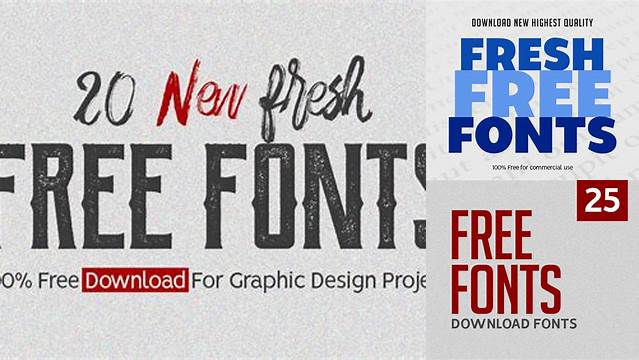
Download Free Fonts For Stunning Graphic Design
Hey there, design enthusiasts! Looking to spice up your projects with some killer typography? Well, you've come to the right place! We're diving headfirst into the awesome world of free graphic design fonts download, and trust me, it's a treasure trove of creativity just waiting to be unleashed. Getting access to free graphic design fonts download is like having a superpower; it empowers you to transform ordinary text into eye-catching visuals that grab attention and leave a lasting impression. Whether you're a seasoned pro or a newbie just starting out, finding the perfect font can be the difference between a design that's “meh” and one that's “WOW!” This guide is your ultimate companion, offering insights, tips, and a hand-picked selection of incredible free graphic design fonts download that will elevate your design game. So, buckle up, because we're about to embark on an exciting journey through the world of typography, ensuring that you have access to the best free graphic design fonts download resources available.
Free Fonts for Graphic Design: Where to Find the Best Ones
Alright, let's get down to business, shall we? Finding the best free fonts for graphic design is like a digital scavenger hunt, but the rewards are oh-so-sweet. Luckily, there are tons of websites out there that offer a vast array of fonts, ready for you to download and use in your projects. One of the most popular places to start your search is Google Fonts. This massive library is a goldmine of high-quality, open-source fonts, perfect for both personal and commercial use. Google Fonts is super easy to navigate, with options to filter fonts by categories like serif, sans-serif, monospace, and more. You can also sort them by popularity, trending, or the number of styles they offer. Seriously, you could spend hours just browsing through all the amazing options. Another fantastic resource is Font Squirrel. This site curates a collection of fonts that are licensed for commercial use, meaning you can use them in your client work without worrying about any legal issues. Font Squirrel also has a handy tool called the Font Identifier, which allows you to upload an image of a font and identify it. This can be a lifesaver when you come across a font you love but don't know the name of! Beyond Google Fonts and Font Squirrel, there are other websites with remarkable free fonts for graphic design such as DaFont and 1001 Fonts. Keep in mind that some fonts may have specific licensing terms, so always double-check before using them in your designs. Always read the license agreements to ensure you are using the fonts appropriately, especially if you plan to use them for commercial purposes. Understanding the licensing terms protects both you and the font creators. The options are vast, and with a little exploration, you'll find a plethora of free fonts for graphic design ready to transform your projects.
Top Websites Offering Free Fonts for Designers
Alright, let's get to the good stuff – the websites! There are tons of places where you can find amazing free fonts for designers, and I'm going to share some of my absolute favorites. First up, we have Google Fonts. It is not only huge, it's also incredibly user-friendly, with a vast collection of open-source fonts that are free for both personal and commercial use. The great thing about Google Fonts is that you can easily preview the fonts, filter them by categories, and even see them in action with your own text. Next, there's Font Squirrel. As I mentioned before, Font Squirrel curates a selection of fonts that are licensed for commercial use, making it a great option if you're working on client projects or commercial designs. The site also has a handy Font Identifier tool that you can use to identify fonts from images. DaFont is a popular website with a massive collection of fonts, but be sure to check the license for each font before using it. 1001 Fonts is another great option. It has a user-friendly interface and a wide variety of fonts to choose from. Before downloading any font, be sure to read the license agreement to understand the usage rights. These websites are an excellent starting point for your quest to find awesome free fonts for designers. These are your go-to resources for finding the best free fonts for designers, so happy hunting!
Best Free Graphic Design Fonts: A Curated Selection
Now, let's dive into some specific font recommendations. I've put together a curated selection of the best free graphic design fonts, covering a range of styles to suit any project. First, we have Open Sans, a clean and versatile sans-serif font that's perfect for body text and headlines alike. It's easily readable and works well in a variety of contexts. Next up is Lato, another popular sans-serif font that's known for its friendly and approachable feel. It comes in a wide range of weights and styles, making it a great option for everything from websites to print materials. Another great choice is Montserrat, a geometric sans-serif font inspired by the architecture of the Montserrat neighborhood in Buenos Aires. It's modern, stylish, and ideal for logos, headlines, and branding projects. For a more classic look, check out Raleway, a stylish sans-serif font with a clean and elegant design. It's perfect for creating a sophisticated feel in your designs. And finally, we have Roboto, a modern sans-serif font developed by Google. It's highly readable and works well across different devices and platforms. This selection is just the tip of the iceberg, but it gives you a good starting point for exploring the world of best free graphic design fonts. Remember to consider the style of the fonts and the overall tone of your designs when choosing the best free graphic design fonts for your projects.
Serif Fonts vs. Sans-Serif Fonts: Choosing the Right Style
Let's talk about the differences between serif and sans-serif fonts because it’s a super important choice that impacts the overall look and feel of your designs. Free graphic design fonts come in two main flavors: serif and sans-serif. Serif fonts have little strokes, or serifs, at the ends of their characters. Think of Times New Roman or Georgia. These fonts often look more traditional and are well-suited for body text, especially in print. The serifs help guide the eye across the page, making them easy to read in large blocks of text. Sans-serif fonts, on the other hand, don't have these serifs. Examples include Arial and Helvetica. These fonts tend to look more modern and clean. They're great for headlines, website text, and any design where you want a contemporary feel. They are also known for their readability on screens. When choosing between serif and sans-serif fonts, consider the overall message you want to convey. Serif fonts often convey a sense of tradition, formality, and trustworthiness. Sans-serif fonts often convey a sense of modernity, simplicity, and informality. It depends on the specific design project. Don't be afraid to experiment with combinations of serif and sans-serif fonts. Combining fonts with different styles can create visual interest and add personality to your designs. Choosing the right free graphic design fonts depends on your design's purpose, and experimenting with various styles is essential to finding the perfect balance.
Modern Free Fonts: Top Picks for Contemporary Designs
If you are looking for something sleek and contemporary, here's a rundown of my top picks for modern free fonts. These fonts are designed to add a touch of sophistication and up-to-date design to your projects. First on the list is Montserrat, a geometric sans-serif that's clean, versatile, and perfect for modern logos and branding. With its clean lines and urban feel, Montserrat brings a contemporary vibe. Then, we have Open Sans, a widely popular sans-serif font known for its great readability and simple design, making it ideal for both body text and headlines. It is a versatile choice for a wide array of modern design projects. Another notable mention is Lato. It is a sans-serif font with a friendly, approachable feel that suits a diverse set of design needs. Lato's extensive range of weights allows for great flexibility. Then, we have Poppins. It is a geometric sans-serif font that’s clear and minimalistic, with a modern touch, making it a great fit for interfaces and digital designs. Last but not least is Raleway. Raleway is a stylish sans-serif font with a sleek design that works beautifully for headlines and body text. All these modern free fonts have their own unique qualities and characteristics, but they all have one thing in common: they will elevate your designs with a contemporary edge. Choosing the right modern free fonts can dramatically enhance the impact of your designs, ensuring they are up-to-date and visually compelling.
Free Fonts for Logos: Creating Brand Identity
Creating a strong brand identity starts with a killer logo, and the right font plays a huge role in that! When selecting free fonts for logos, you're essentially choosing the visual voice of your brand. It's a decision that will impact how people perceive your business. When picking a font for your logo, start by considering the personality of your brand. Is it playful? Serious? Sophisticated? The font you choose should reflect that. For example, a fun, energetic brand might use a bold, quirky font, while a more formal brand might opt for a classic, elegant serif font. Also, you should think about readability. A logo needs to be recognizable, even at small sizes. Avoid fonts that are overly intricate or difficult to read. The goal is instant recognition. Consider using a combination of fonts. Many successful logos use one font for the main logo text and another for the tagline or supporting text. Just make sure the fonts complement each other. Many websites have tools to test fonts. Try out different fonts, see them in context, and see how they look alongside other elements. Remember that the right font can make your logo memorable and impactful. Choose fonts that align with your brand, and you’ll get a killer design. Choosing the perfect free fonts for logos is a pivotal step in creating a lasting brand identity.